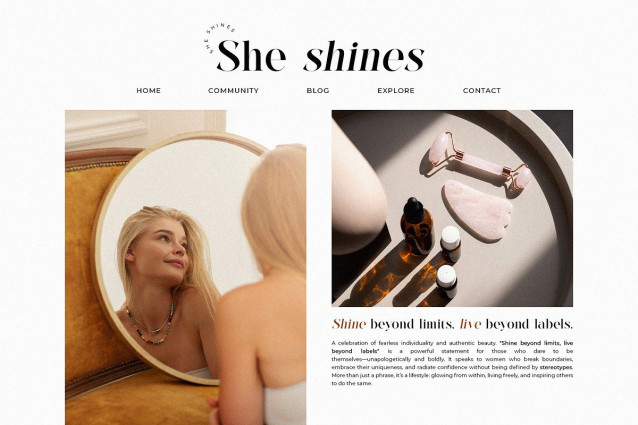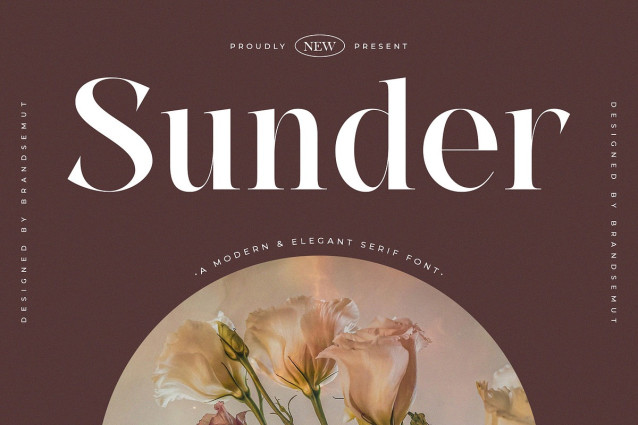
Sunder Font
Sunder Font is a modern and elegant serif font designed to bring timeless sophistication to your creative projects. With a full set of uppercase and lowercase letters, Sunder features smooth curves, refined contrast, and graceful terminals — perfect for high-end branding, fashion editorials, wedding invitations, product packaging, and social media design.
Every character in Sunder is thoughtfully crafted to exude elegance and softness while maintaining modern structure and legibility. It’s a versatile typeface that blends classic beauty with a contemporary edge.